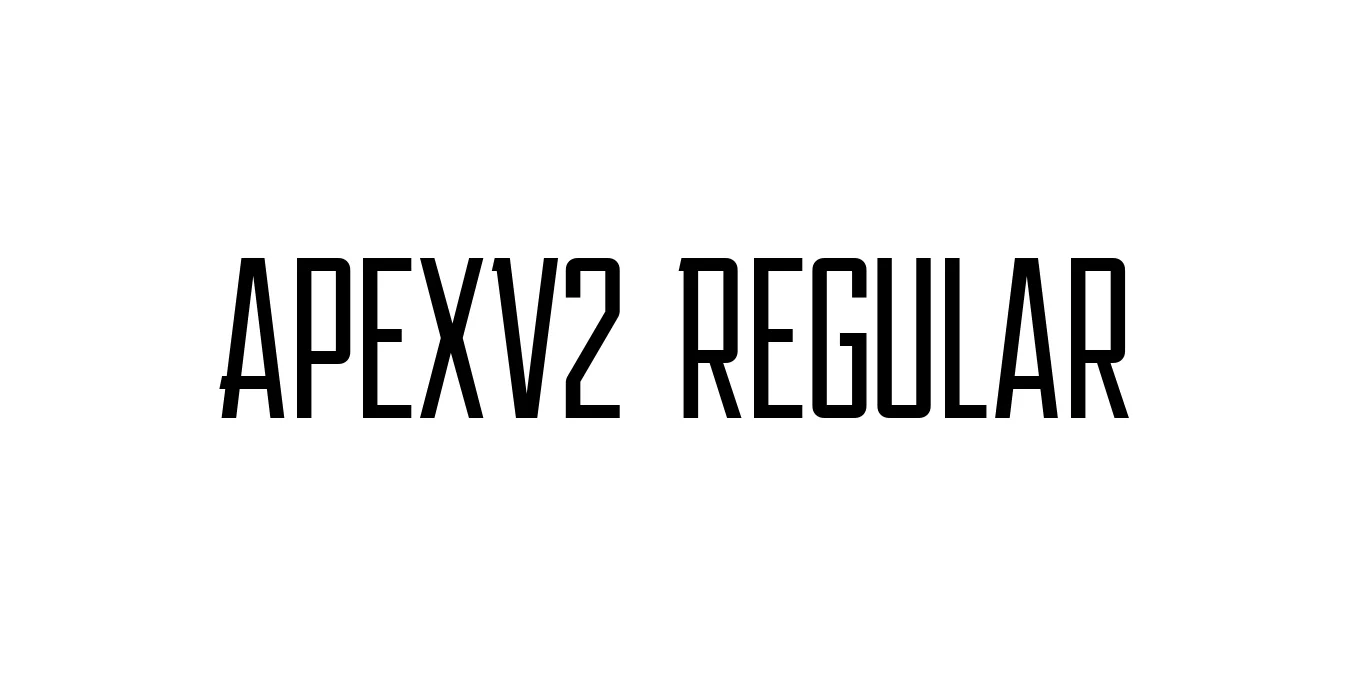
ApexV2 Regular
Designed by Apex Fonts
| Category | Display Sans Serif |
| Designer | Apex Fonts |
ApexV2 Regular is a cutting-edge geometric sans-serif typeface designed for high-impact visual communication and precision. It features sharp, mathematical terminals and a uniform stroke weight that gives it a clean, digital aesthetic. The design is heavily influenced by modern technology and futuristic concepts, making it a standout choice for projects that require a sense of speed, efficiency, and advanced engineering in a minimalist package.
The second iteration of the Apex series, ApexV2, offers significantly improved legibility and refined kerning compared to its predecessor. Its versatile nature allows it to transition seamlessly from large-scale display headers to functional user interface elements. Whether utilized in digital interfaces, corporate branding, or science-fiction themed media, ApexV2 Regular provides a professional and forward-thinking look that commands attention in any contemporary design setting.
ApexV2 Regular Best Uses
Perfect for HUD designs, menu interfaces, and futuristic game titles.
Ideal for logos representing tech startups and engineering firms.
Great for striking hero sections and high-tech call-to-action headers.
Well-suited for electronic music events and sci-fi movie promotions.